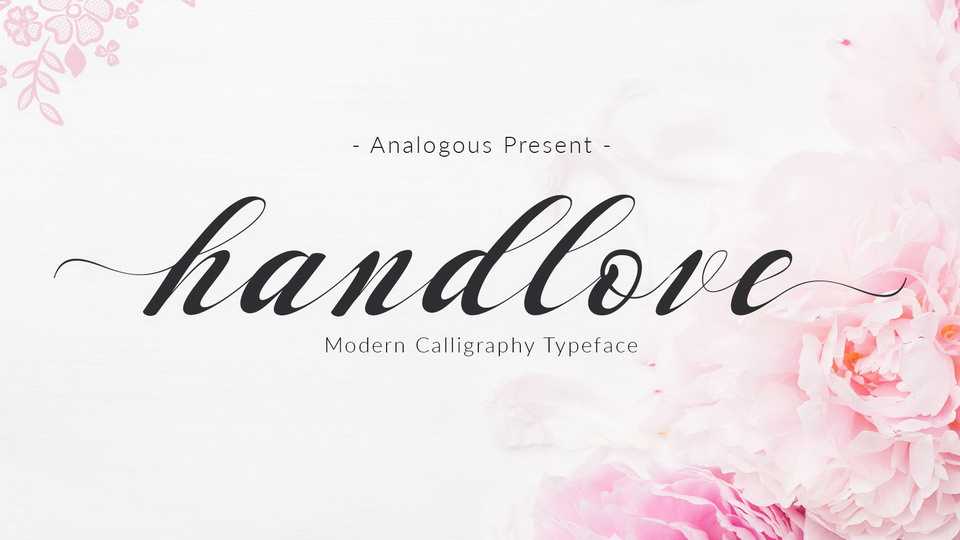
Download Handlove font, a sweet modern calligraphy script with a lovely swashes. Perfect for wedding design, femine branding, quotes, social media, apparel and more.
Designer: Analogous